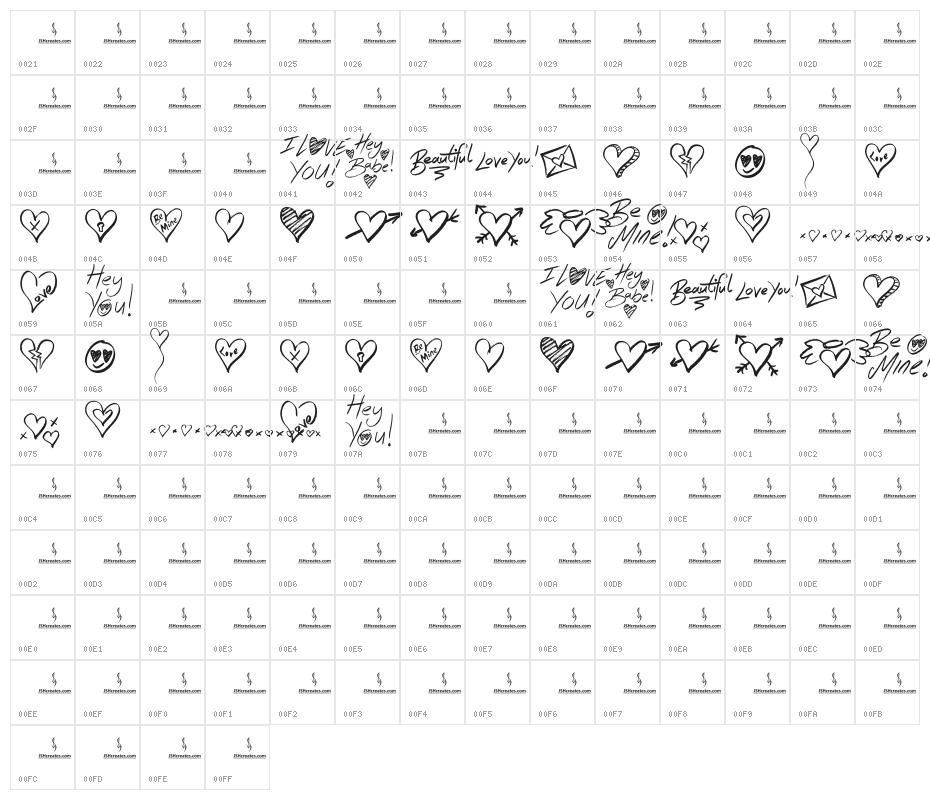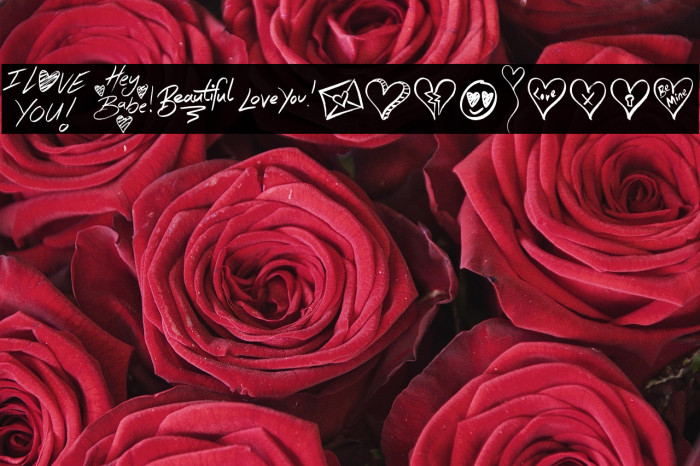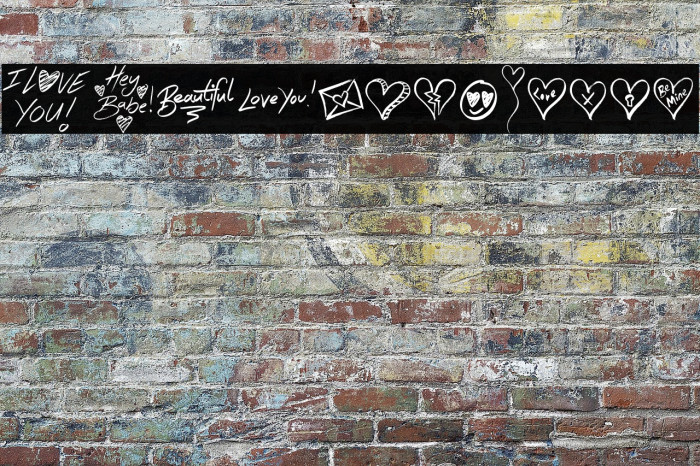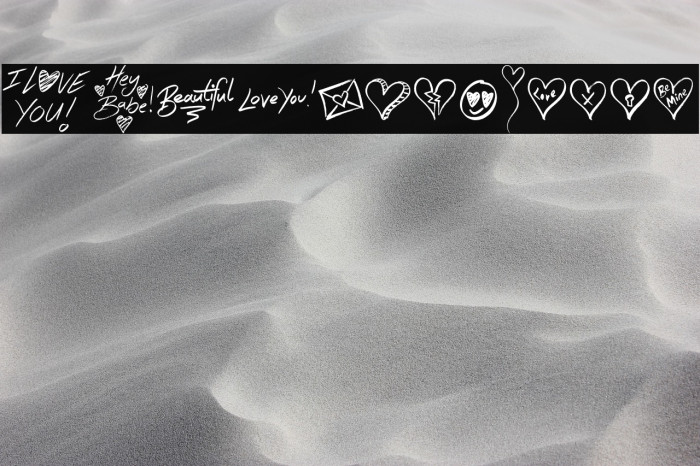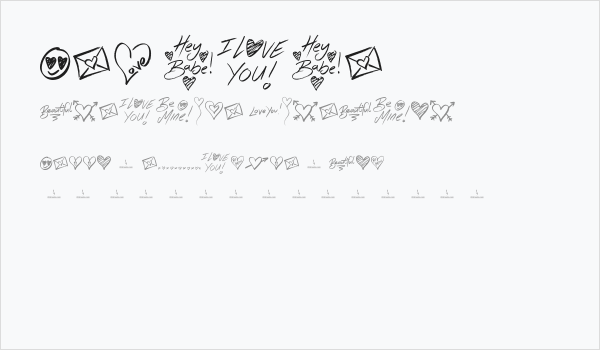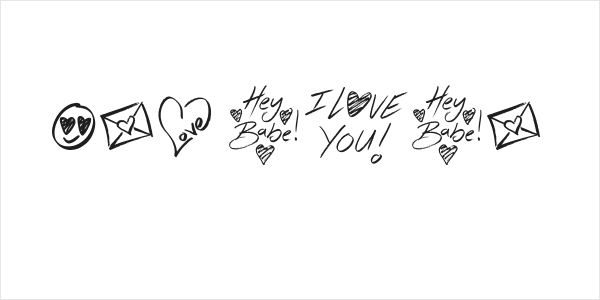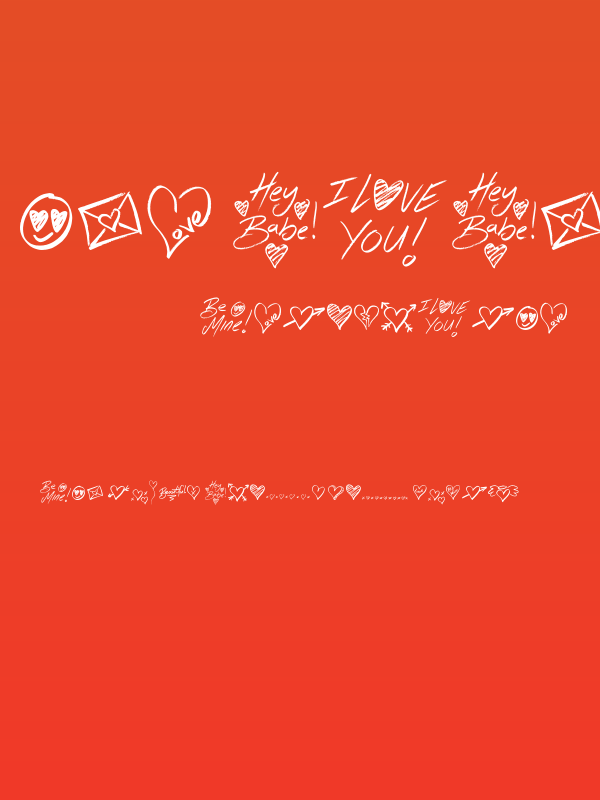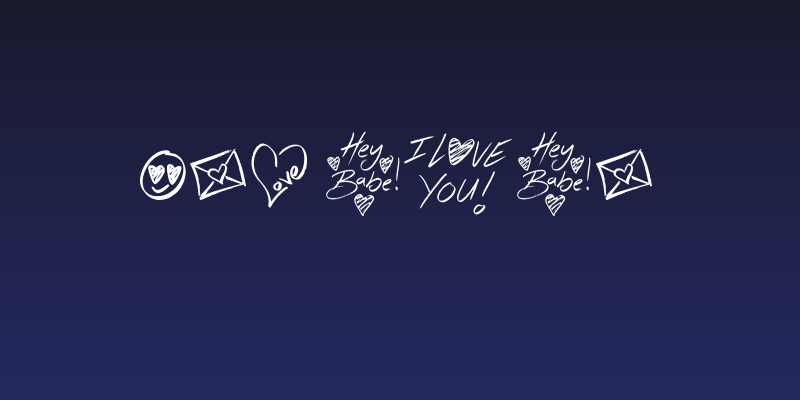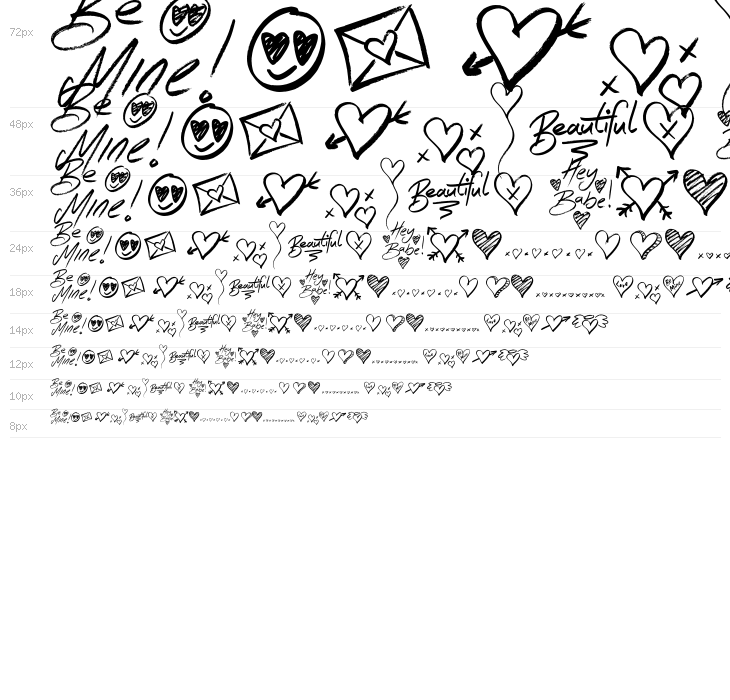
Hey Babe Font
Hey Babe Description
This playful and whimsical font is characterized by its hand-drawn, sketch-like appearance, featuring a variety of heart shapes, arrows, and playful doodles. It conveys a sense of fun and romance, with a casual and informal style that is perfect for love notes, greeting cards, and creative projects. The letters are crafted with a personal touch, giving them a unique and charming feel. The font includes a mix of uppercase and lowercase letters, along with various symbols and decorative elements that enhance its playful nature.
| Overall Style | Whimsical, Romantic |
| Use Case | Greeting cards, Invitations, Creative projects |
| Proposed Projects | Ideal for Valentine's Day cards, wedding invitations, love notes, and playful graphic designs. |